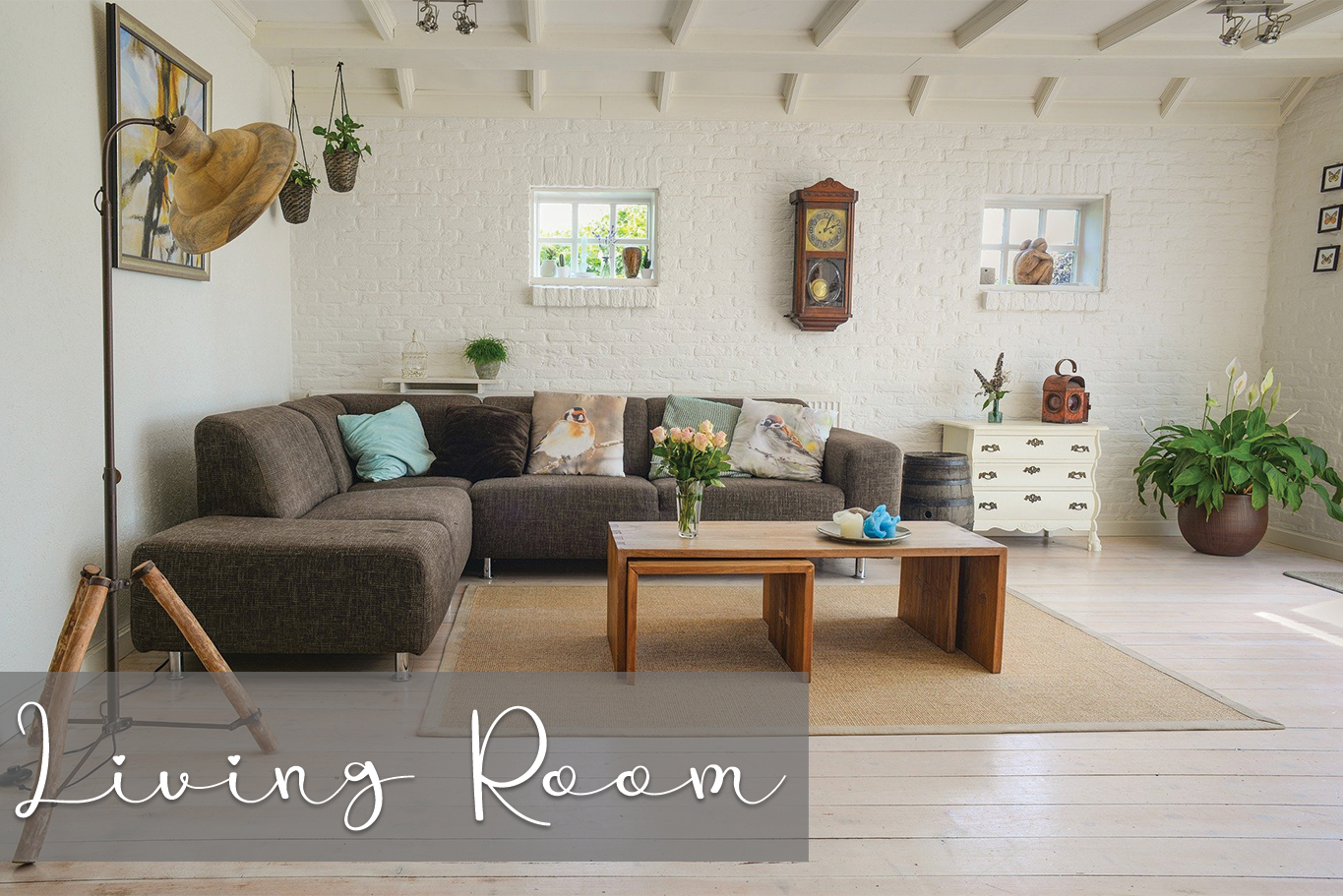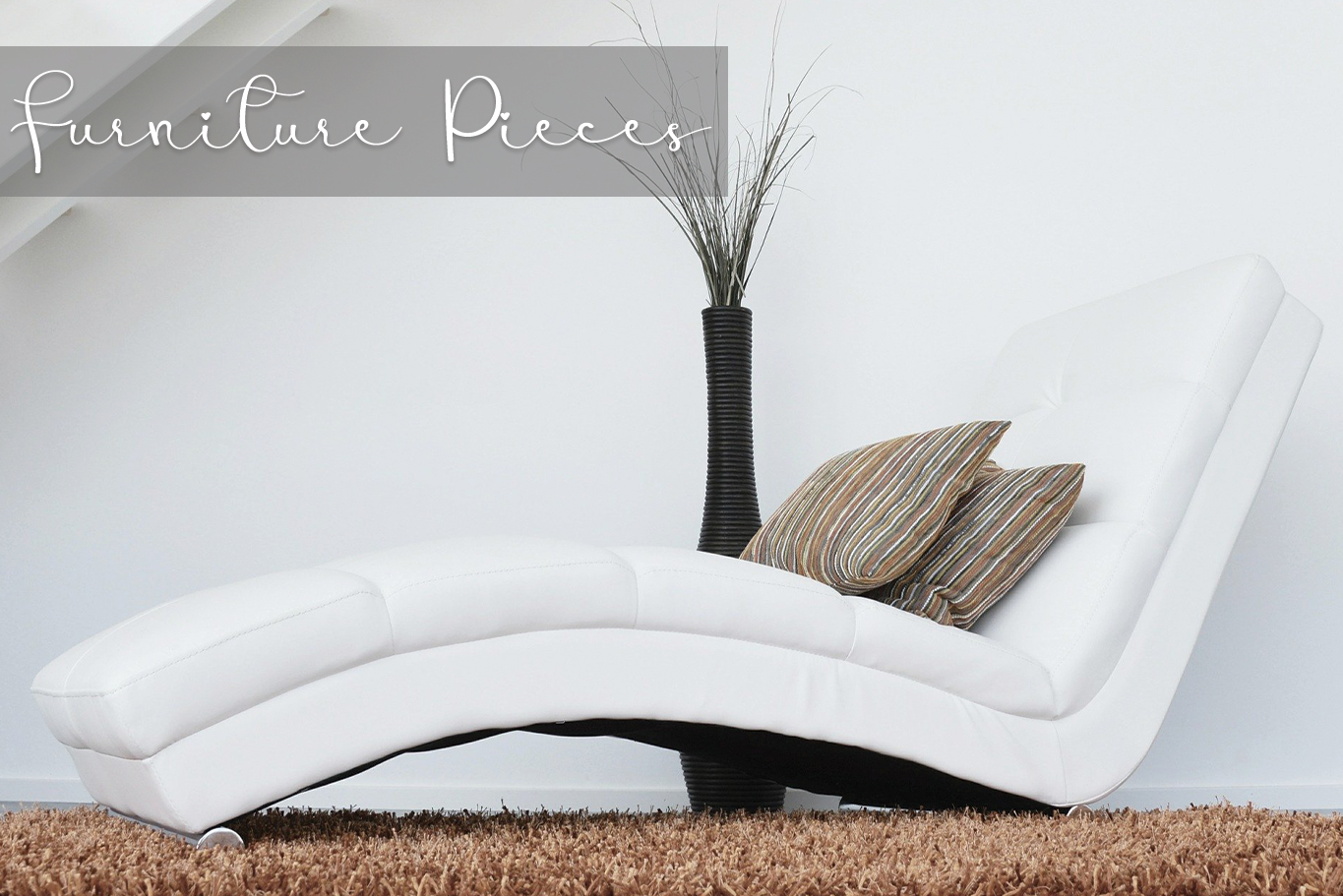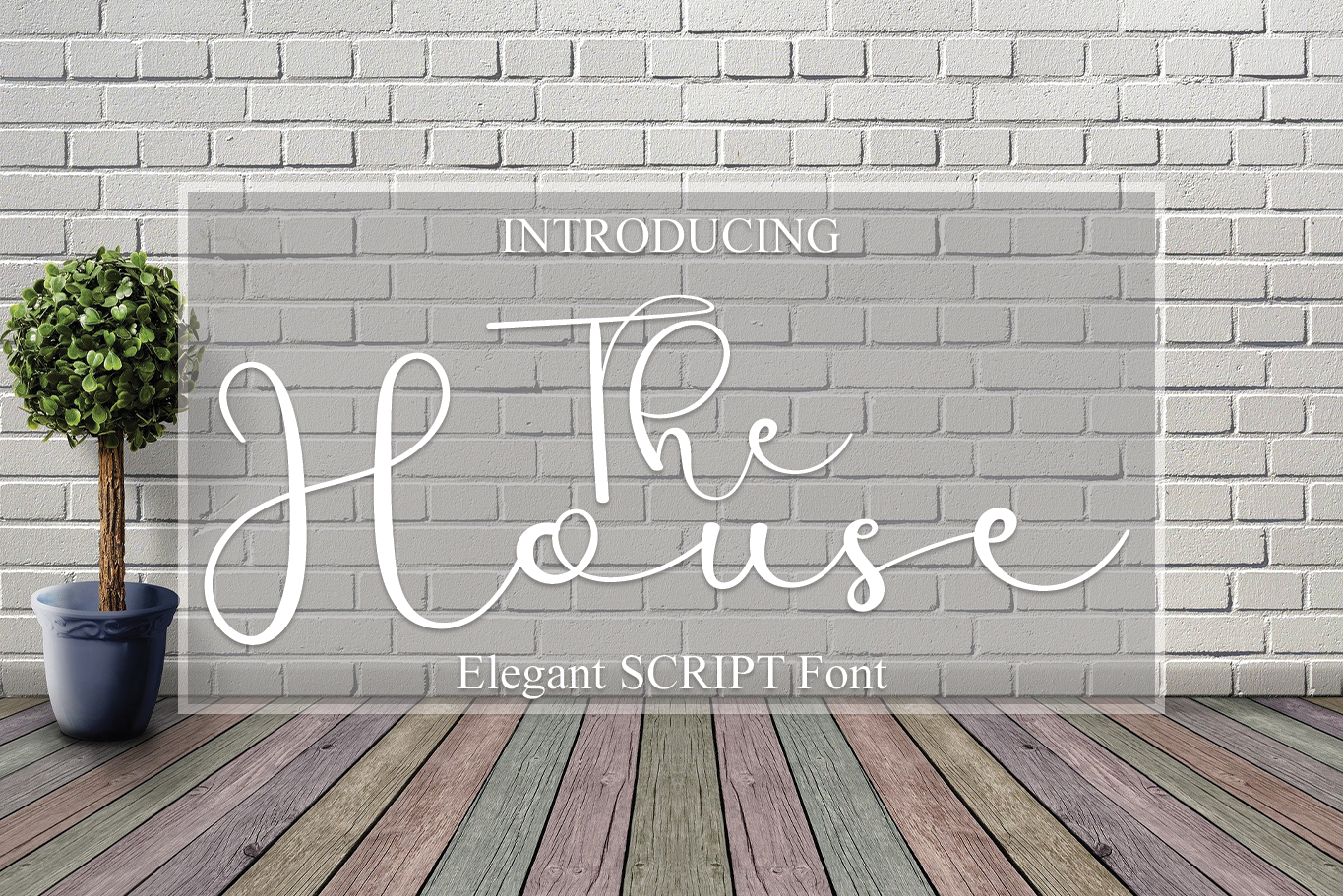
The House Font
The House Script Font
This is a lovely, round lettered and sweet handwritten font. Featuring characters that dance along the baseline, this font will add a luxury spark to any design project that you wish to create!